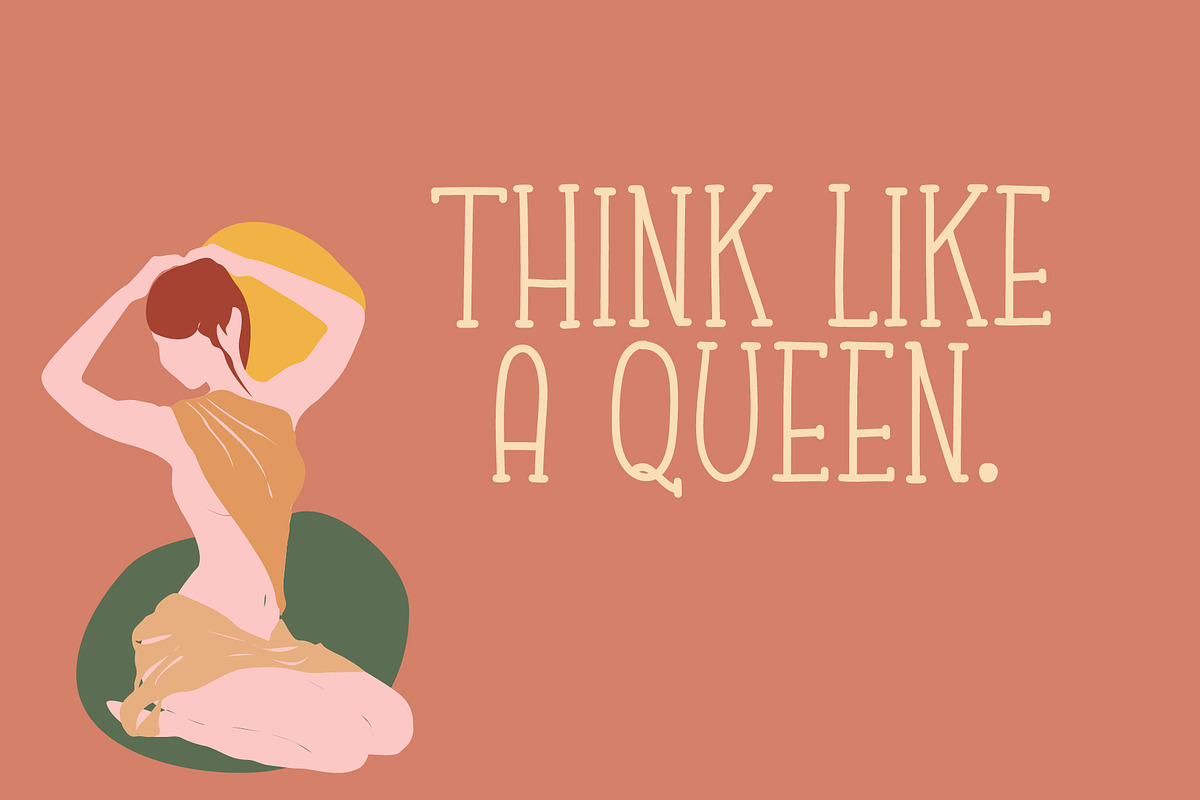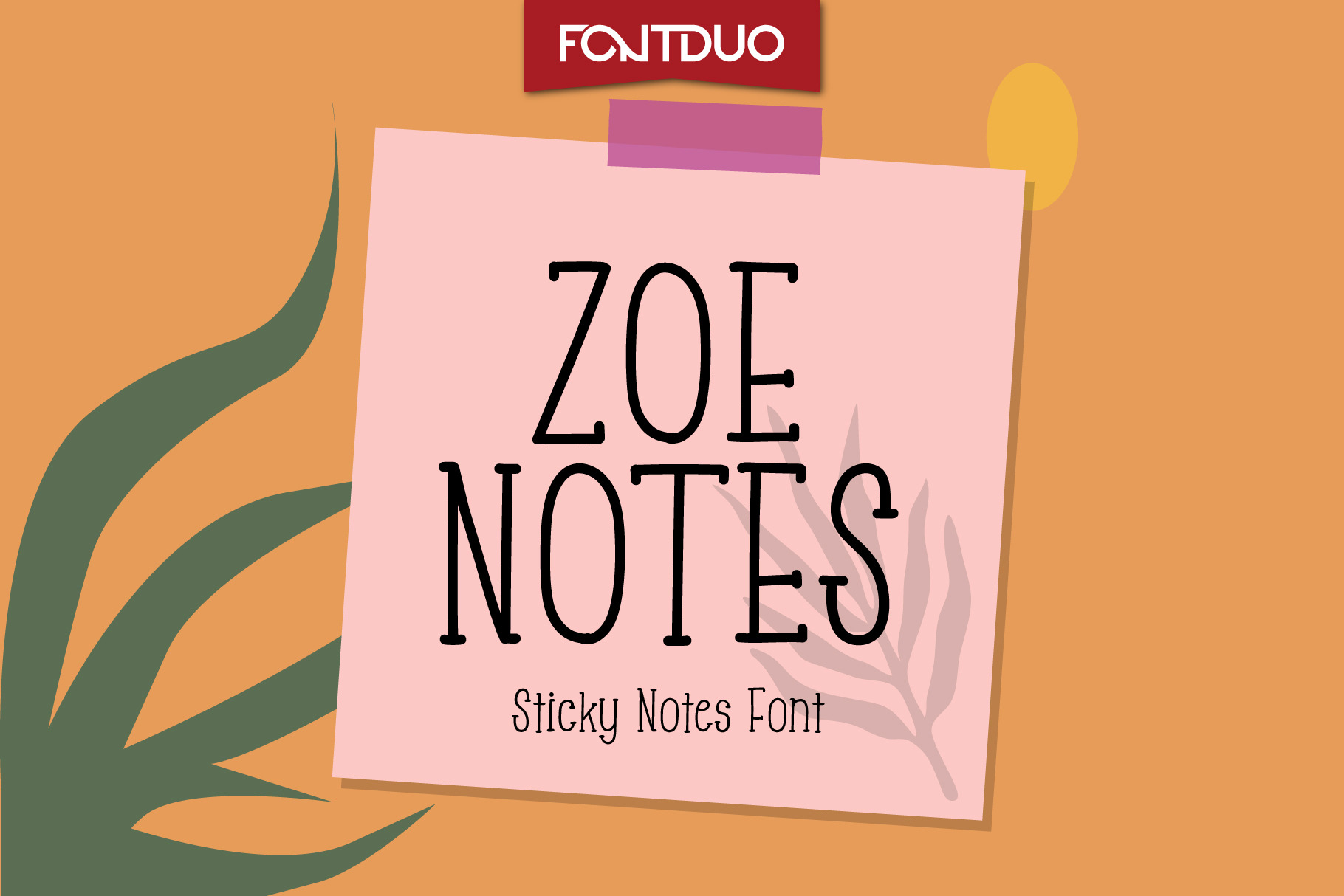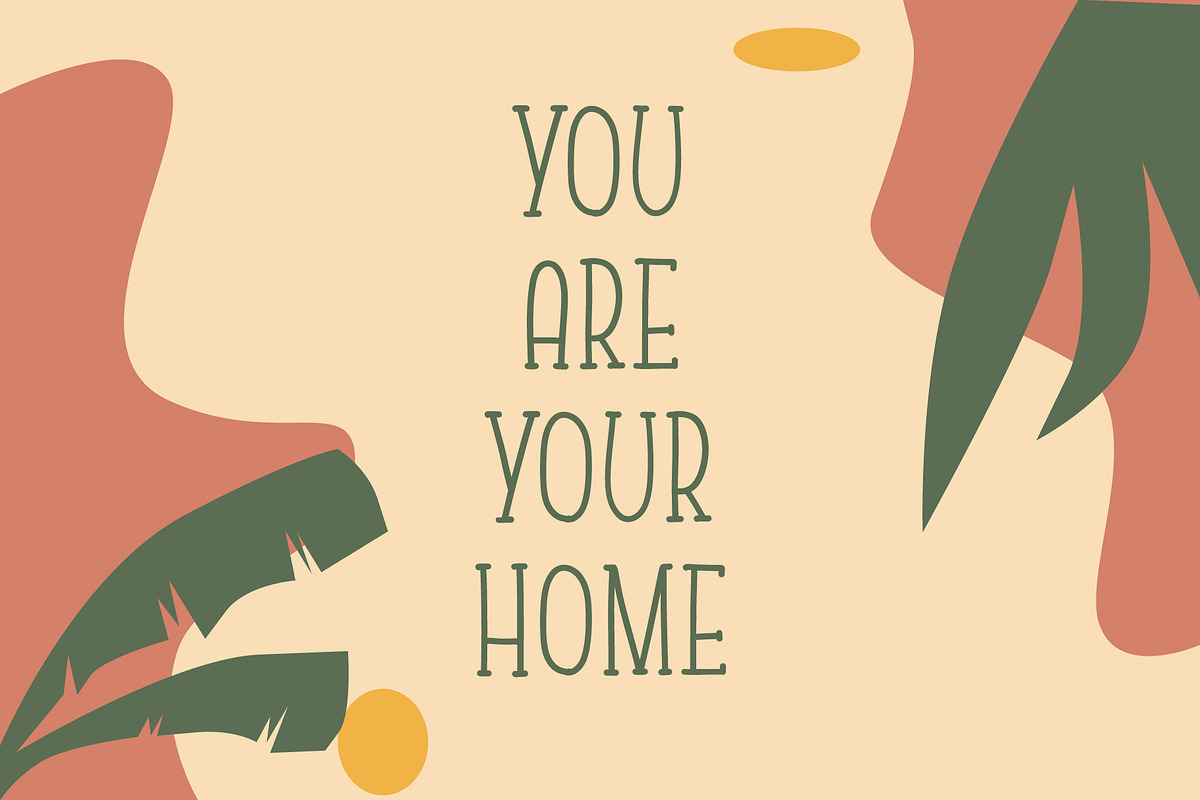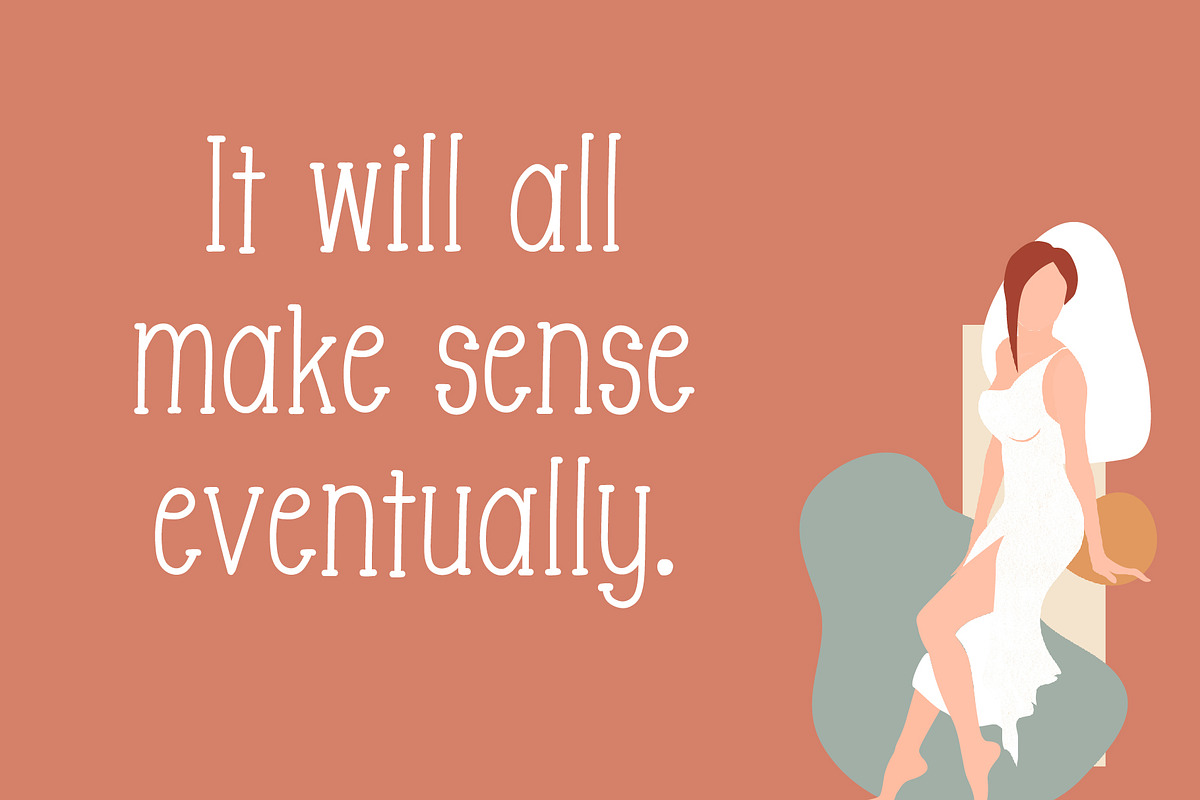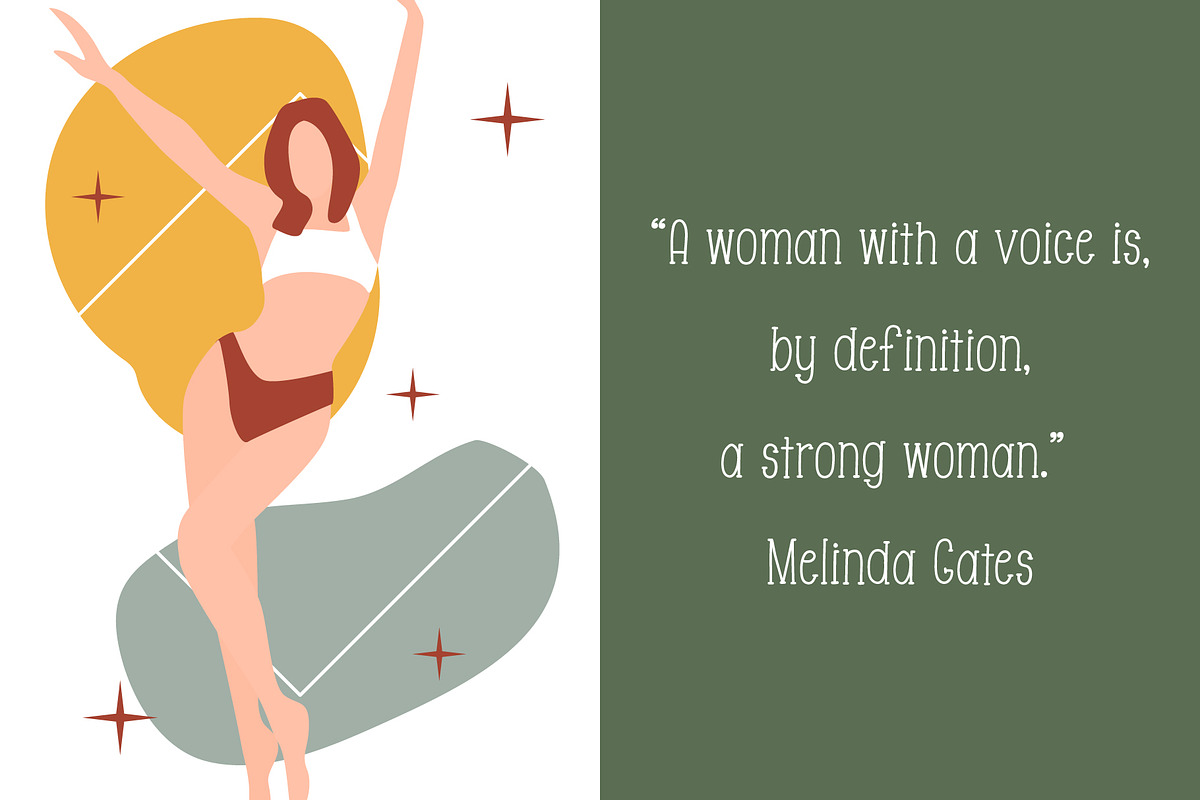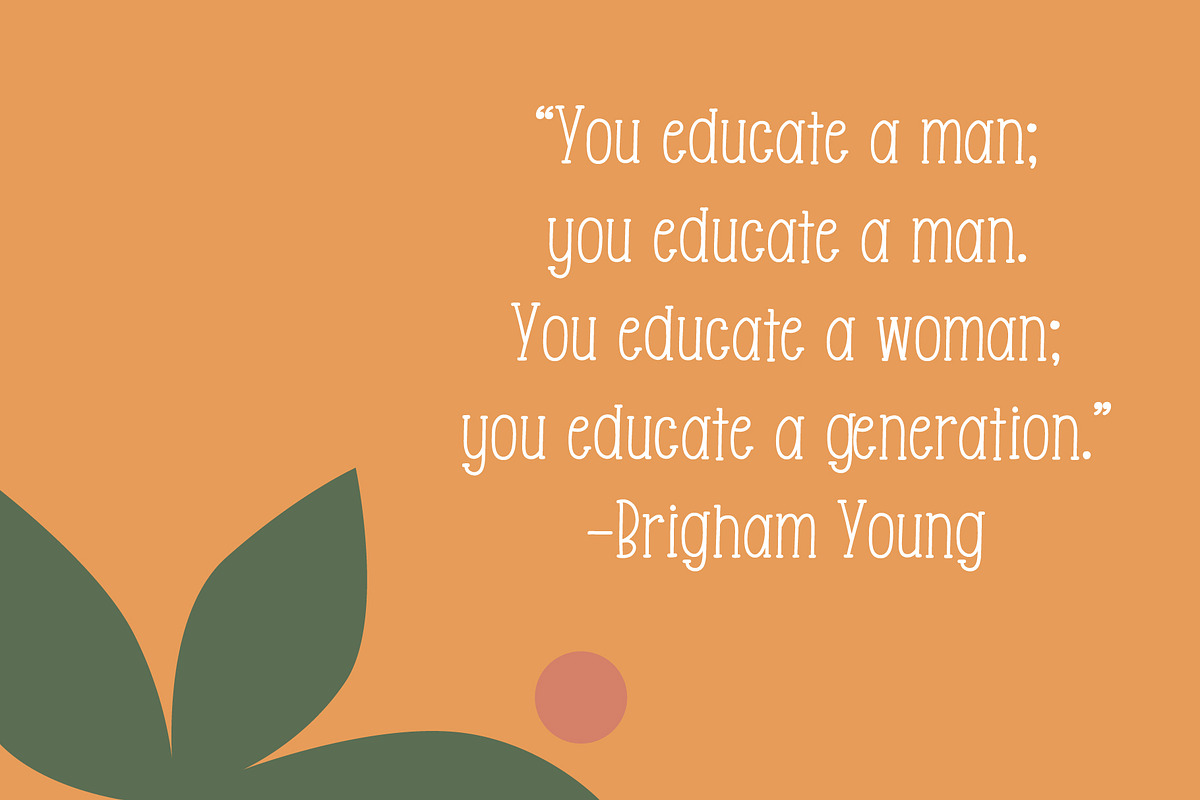
Zoe Sticky Notes Font
There's nothing cuter than a handwritten font such as Zoe Notes FD. Its potential to elevate any creation will make this font a valuable addition to your font collection.